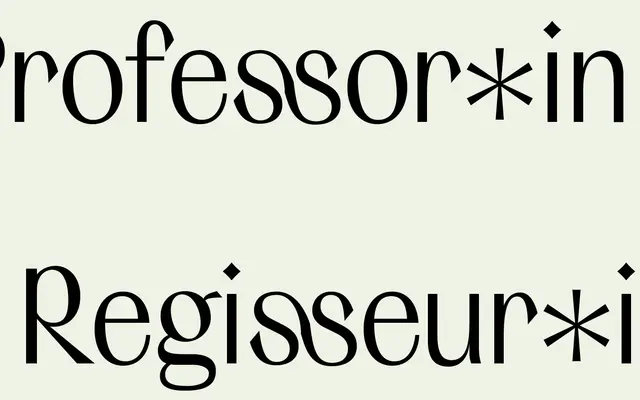
Calyces Inc
Charlotte Rohde · Charlotte Rohde
A single-weight sans offered free for feminist projects, with broad Latin coverage and a careful set of OpenType alternates.
Described as the successor to Calyces, this typeface carries the same ethos of its predecessor: it is available without charge for feminist projects upon request. The single Regular weight ships with a thorough Latin Extended character set, oldstyle and tabular figures, standard ligatures and multiple stylistic sets providing alternate forms for a number of characters. Its political positioning is as considered as its glyph design.
The page offers limited visual context, but the glyph set and alternate characters suggest a humanist sans construction with attention to letterspacing and optical detail. It is positioned as a successor to Calyces with a refined, purposeful character.